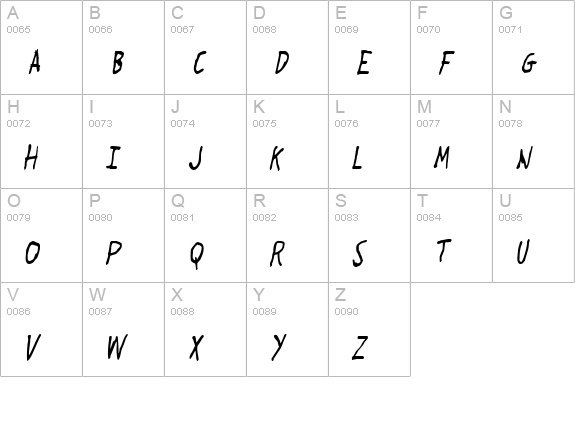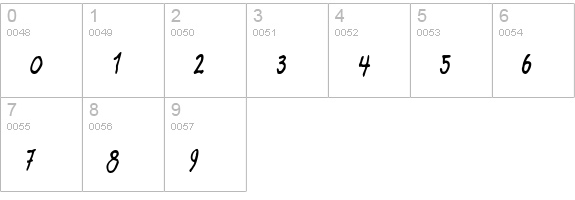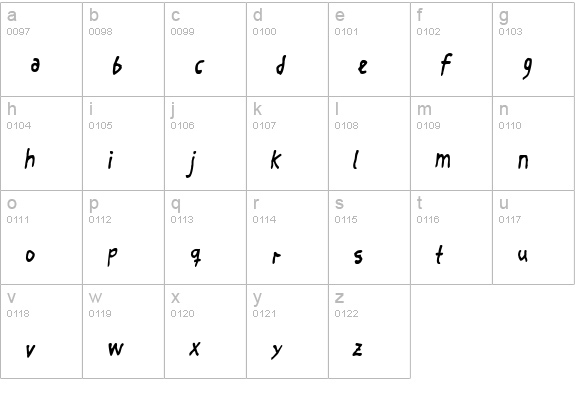
Crosspatchers delight Font Details
Crosspatchers Delight font is a whimsical and playful typeface that is perfect for adding a touch of creativity to your design projects. With its unique and quirky characters, this font is sure to capture attention and bring a sense of fun to any text. Whether you are working on a poster, invitation, or logo, Crosspatchers Delight font will make your words stand out in style. What's even better is that Crosspatchers Delight font is available for free download at FontsMarket.com. You can easily access this charming font and use it in your personal and commercial projects without any cost. Don't miss out on the opportunity to add a touch of whimsy to your designs with the delightful Crosspatchers Delight font. Download it today and let your creativity shine!